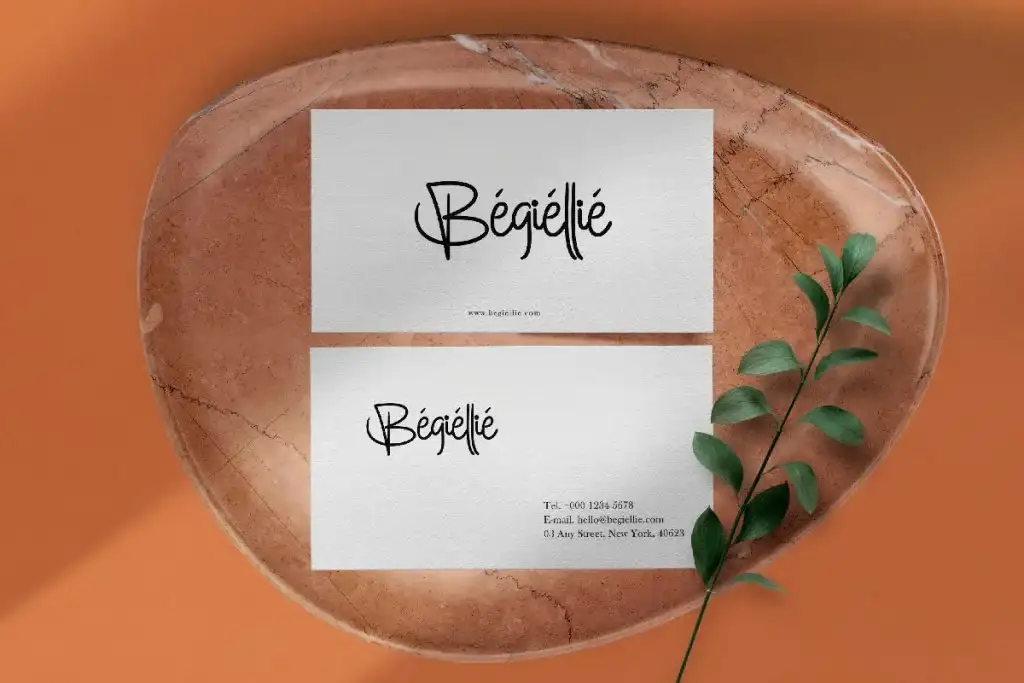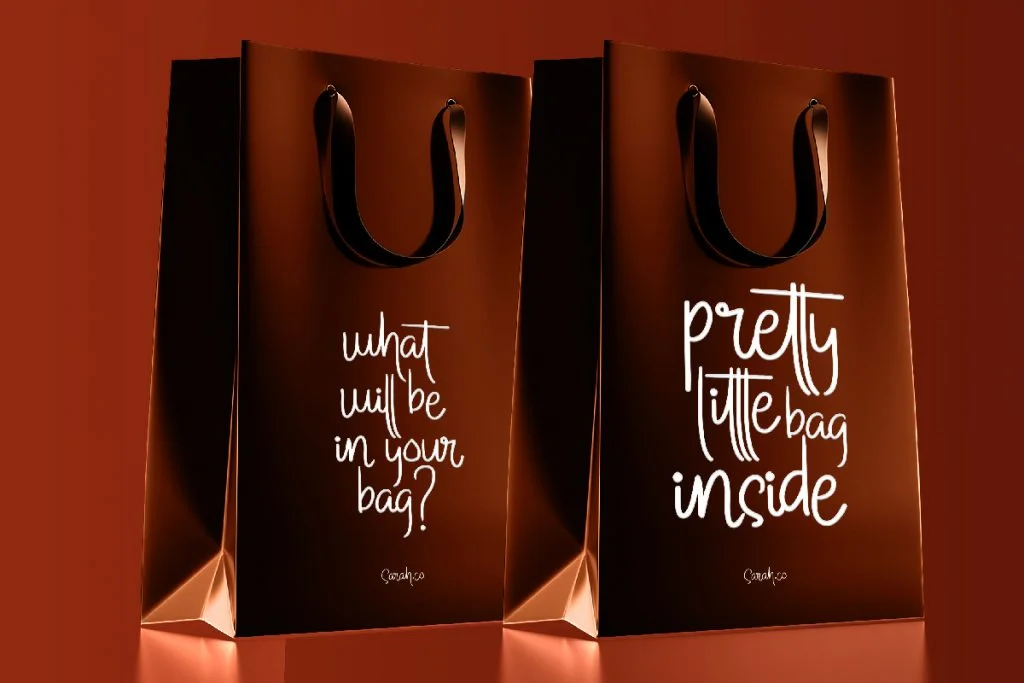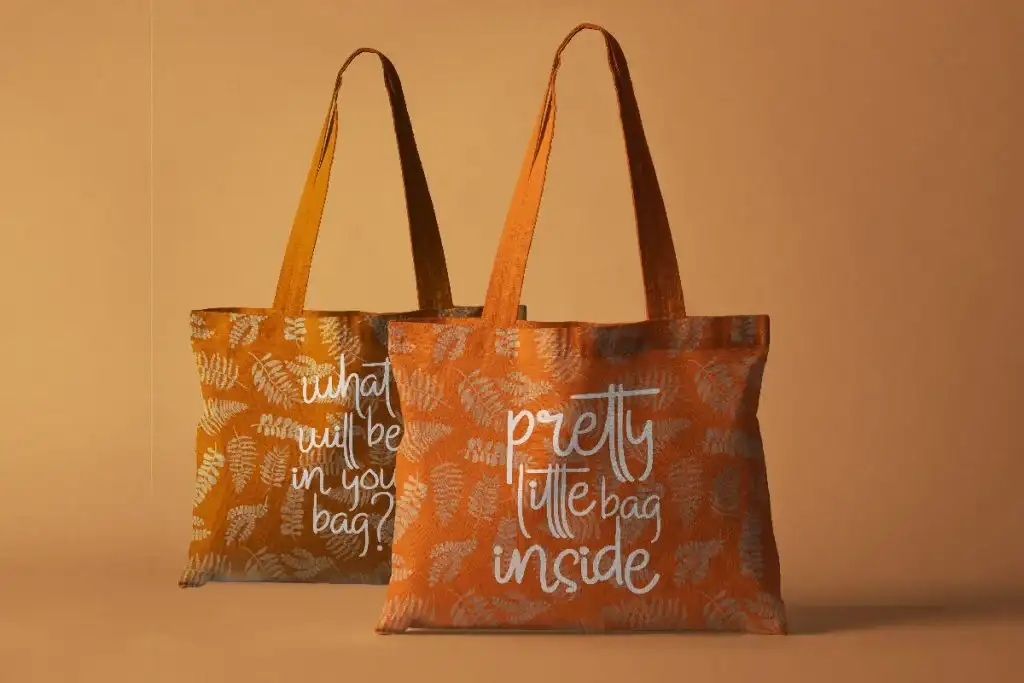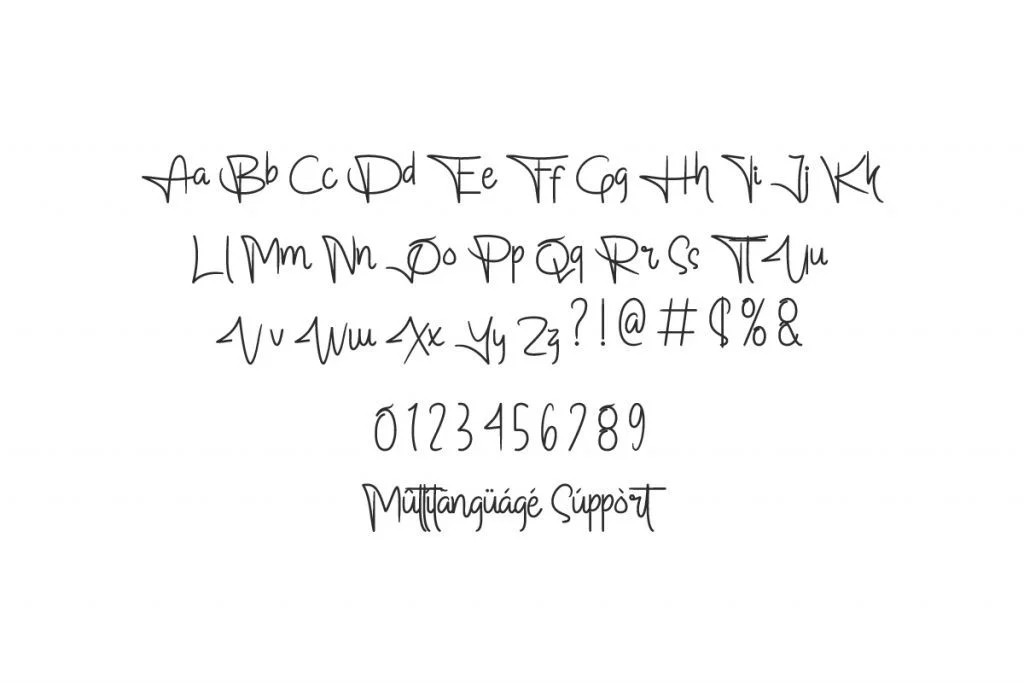
Marlinton Handwriting Font
Marlinton Font</span></strong> is a monoline handwriting signature font by NihStudio. <strong><span style=”text-decoration: underline;”>Marlinton will be great for branding, promotion, professional, video, photography etc
Marlinton – Elegant Handwriting Script Font by NihStudio
Marlinton Font is a unique and stylish handwriting script font created by NihStudio, designed by talented Indonesian font designers Renata and Sarah in 2020. This handcrafted font brings an authentic handwritten touch to your creative projects with its elegant, casual, and vintage brush lettering style.
• Well-spaced and professionally kerned character set for high readability and premium quality
Ideal For:
• Branding & Logo Design
• Wedding Invitations & Event Stationery
• Business Cards & Professional Signage
• Brochures, Flyers, and Marketing Materials
• Social Media Posts, Quotes, and Blog Headers
It’s especially well-suited for industries like:
• Wedding & Event Planning
• Architecture & Real Estate
• Law Firms & Corporate Brands
• Florists, Gardening & Landscaping
• Makeup Artists, Salons & Spas
• Hotels, Travel & Hospitality
• Music & Entertainment
Font Style Highlights:
• Handmade & Classic Calligraphy
• Vintage Brush Aesthetics
• Elegant, Sophisticated, and Stylish
If you’re looking for a beautiful script font that combines elegance with authenticity perfect choice to elevate your visual identity.